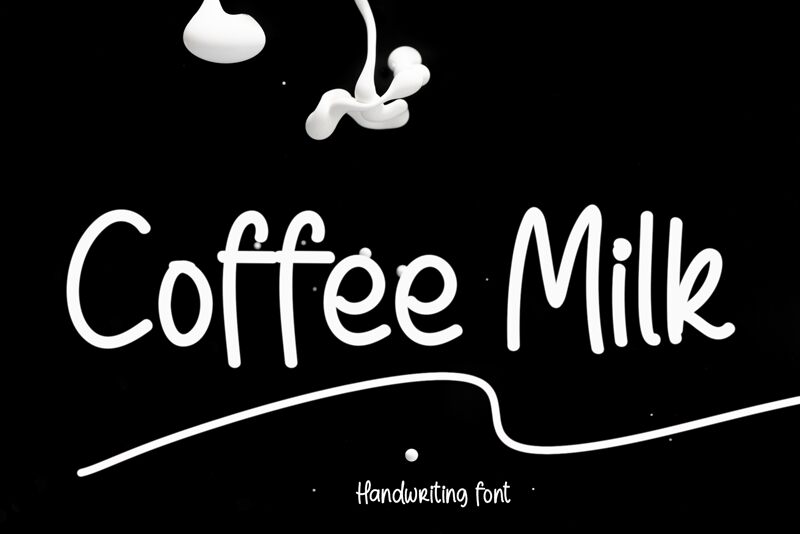
Coffee Milk typeface
Coffee Milk
This font retains a classy calligraphic influence while feeling contemporary and fresh. Its versatility makes it perfect for a wide range of creative ideas, from letterheads and titles to stationery designs.